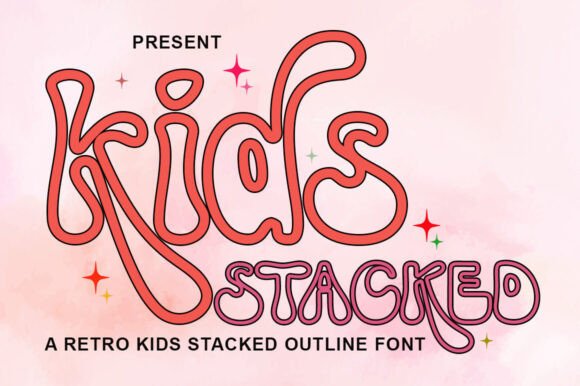
Kids Stacked Outline Font: A Cute and Charming Display Font
Kids Stacked Outline font is a delightful and charming display font that is sure to add a touch of whimsy and quirkiness to your designs. This font is perfect for designers, artists, and crafty enthusiasts who want to create fun and engaging projects that appeal to kids and adults alike. In this article, we’ll explore the features and benefits of Kids Stacked Outline font, and how you can use it to brighten up your designs.
What is Kids Stacked Outline Font?
Kids Stacked Outline font is a type of display font that features a stacked outline design. The font is made up of bold, outlined letters that are stacked on top of each other, creating a unique and eye-catching effect. The font is highly legible and can be used for a variety of design projects, from posters and flyers to digital graphics and crafts.
Features of Kids Stacked Outline Font
- Cute and Charming Design: Kids Stacked Outline font features a cute and charming design that is sure to appeal to kids and adults alike. The font’s stacked outline design gives it a playful and whimsical feel that’s perfect for a variety of design projects.
- Whimsical and Quirky: This font is highly whimsical and quirky, making it perfect for designers who want to add a touch of personality to their designs. The font’s unique design is sure to make your projects stand out from the crowd.
- Highly Legible: Despite its unique design, Kids Stacked Outline font is highly legible and can be used for a variety of design projects, from posters and flyers to digital graphics and crafts.
Benefits of Using Kids Stacked Outline Font
Kids Stacked Outline font offers a range of benefits for designers, artists, and crafty enthusiasts. Here are just a few of the benefits of using this font:
- Adds a Touch of Whimsy: Kids Stacked Outline font adds a touch of whimsy and quirkiness to your designs, making them more engaging and fun.
- Perfect for Kids’ Projects: This font is perfect for kids’ projects, such as posters, flyers, and digital graphics. The font’s cute and charming design is sure to appeal to kids and make your projects stand out.
- Easily Customizable: Kids Stacked Outline font is easily customizable, allowing you to adjust the font size, color, and style to suit your design needs.
- Time-Saving: This font is a time-saving solution for designers who want to create fun and engaging projects quickly. The font’s unique design eliminates the need to create custom lettering from scratch.
Design Ideas Using Kids Stacked Outline Font
Kids Stacked Outline font is a versatile font that can be used for a variety of design projects. Here are some design ideas to get you started:
- Kids’ Posters and Flyers: Use Kids Stacked Outline font to create fun and engaging posters and flyers for kids’ events, such as birthday parties and school events.
- Digital Graphics: Use the font to create digital graphics, such as social media graphics, blog headers, and email newsletters.
- Crafts and DIY Projects: Use Kids Stacked Outline font to create custom lettering for crafts and DIY projects, such as signs, banners, and decorations.
- Children’s Book Titles: Use the font to create custom title pages for children’s books.
Tips and Tricks for Using Kids Stacked Outline Font
Here are some tips and tricks for using Kids Stacked Outline font:
- Experiment with Font Sizes: Experiment with different font sizes to create visual interest and emphasis.
- Combine with Other Fonts: Combine Kids Stacked Outline font with other fonts to create a unique and eye-catching design.
- Use Bright and Bold Colors: Use bright and bold colors to make your designs more engaging and fun.
- Keep it Simple: Keep your design simple and uncluttered to ensure that the font is the focal point.
Kids Stacked Outline font is a cute and charming display font that is sure to add a touch of whimsy and quirkiness to your designs. With its unique stacked outline design, this font is perfect for designers, artists, and crafty enthusiasts who want to create fun and engaging projects that appeal to kids and adults alike. Whether you’re creating posters, flyers, digital graphics, or crafts, Kids Stacked Outline font is a great choice. So why not give it a try and see the amazing results for yourself?